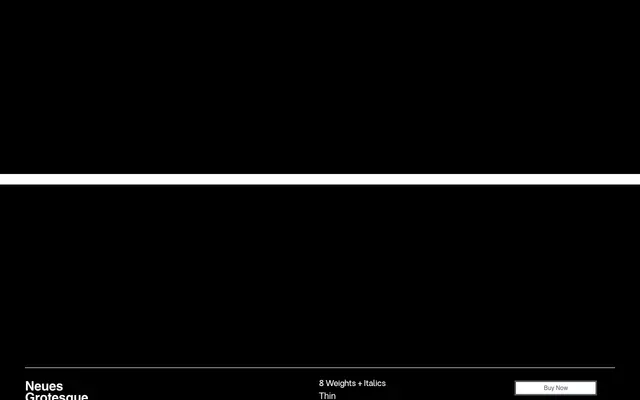
Neues Grotesque
A contemporary grotesque with restrained detailing and systematic proportions, offered in eight weights with matching italics and broad Latin language coverage.
Drawing from classic European grotesque conventions, this family prioritises consistency and optical balance over expressive character. Eight weights from Thin to Black each have a companion italic, giving designers sufficient range for identity systems, editorial layouts and interface typography. With 740 glyphs covering 218 Latin-script languages, it is a competent utility grotesque suited to multilingual publishing and corporate communication.
Described by the foundry as a contemporary grotesk drawing influence from classic European grotesks, with disciplined proportions and restrained detailing consistent with the grotesque sans-serif tradition.